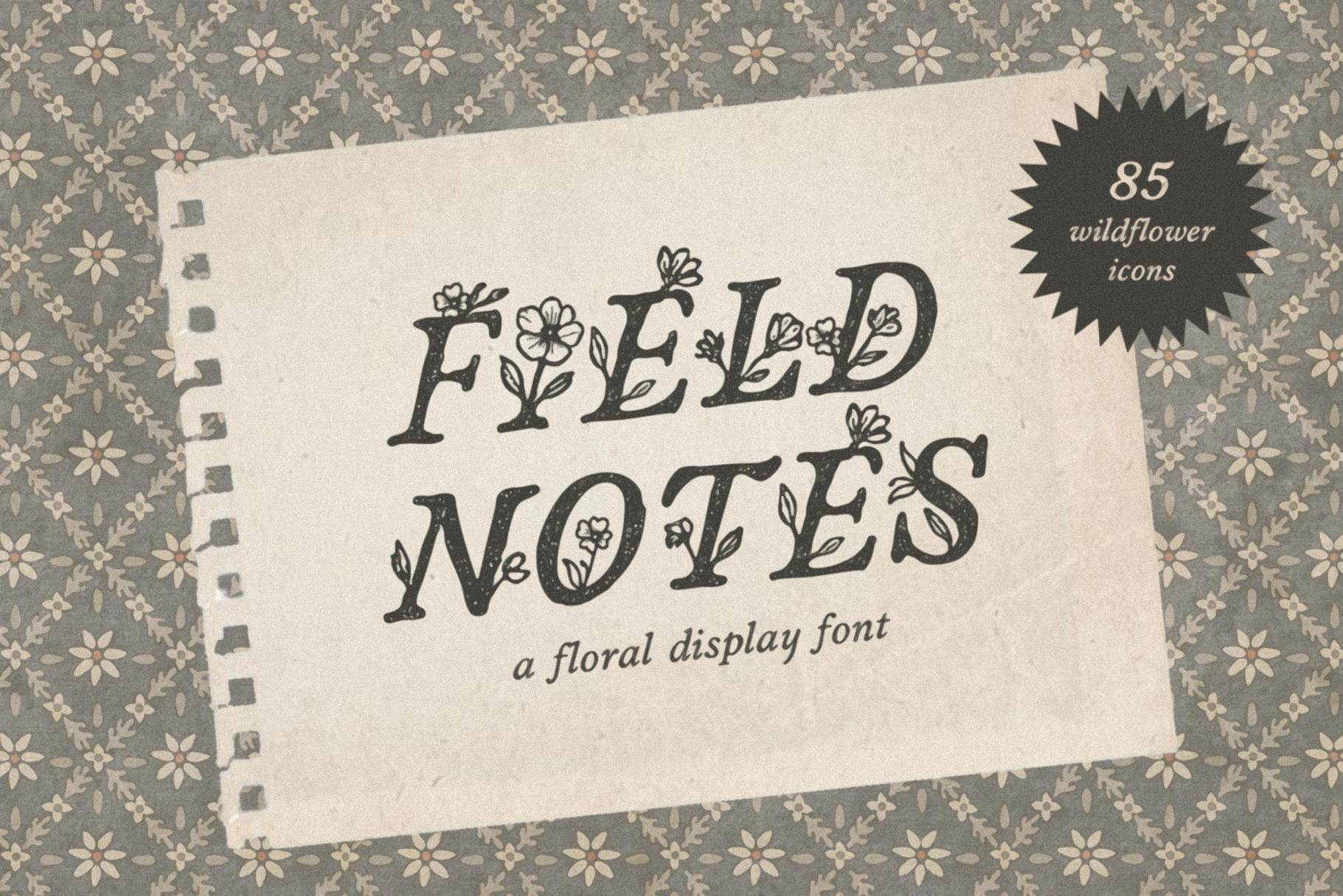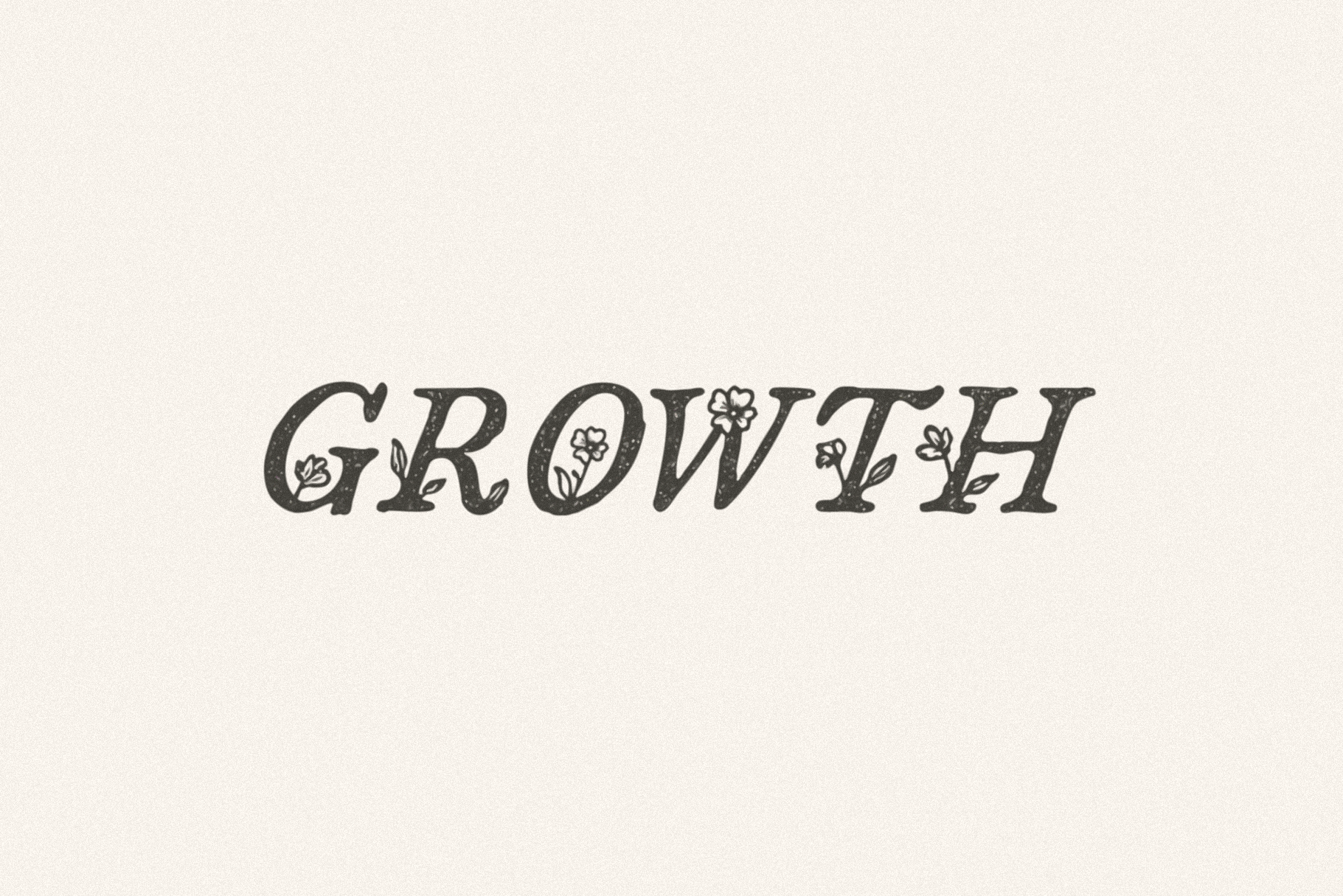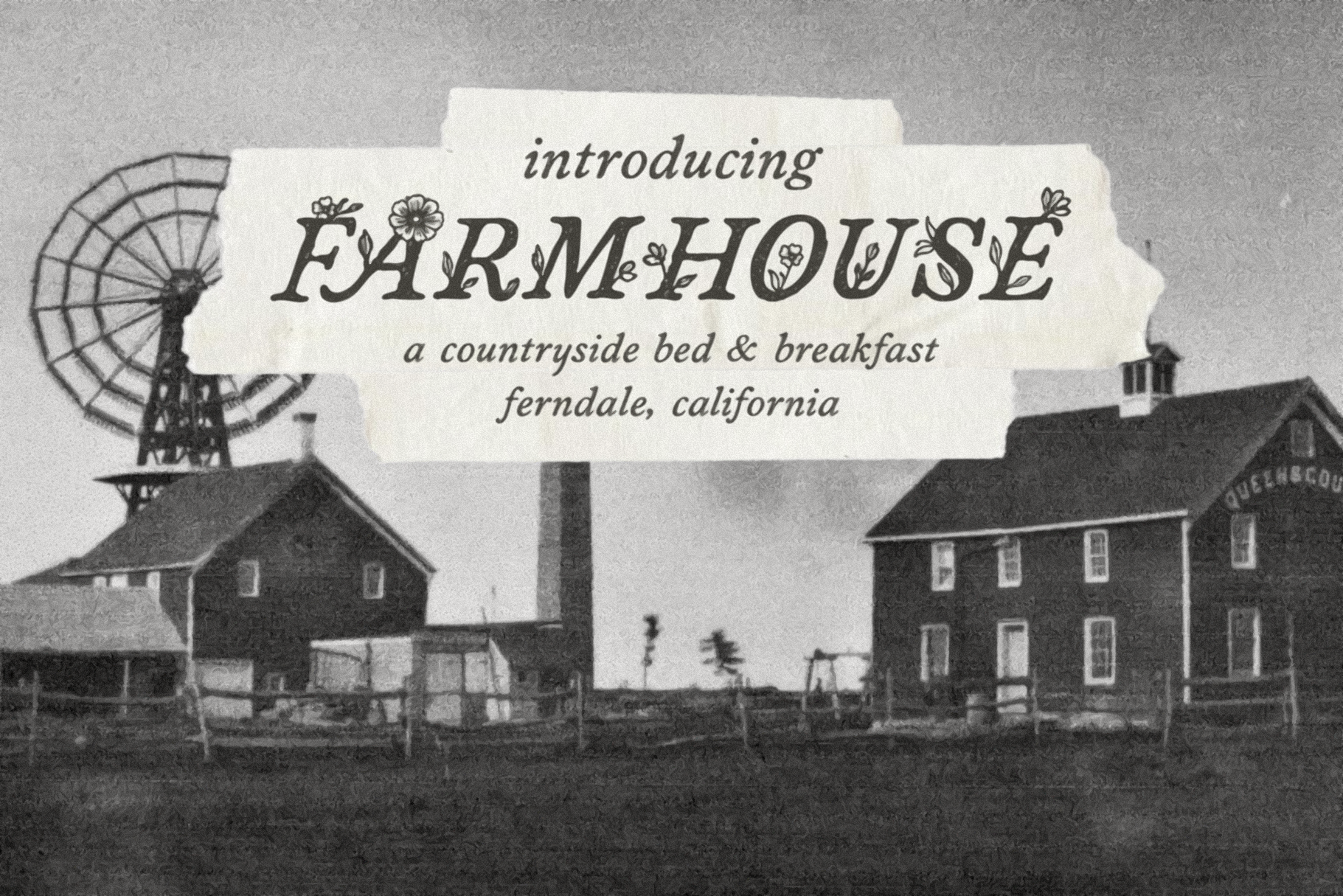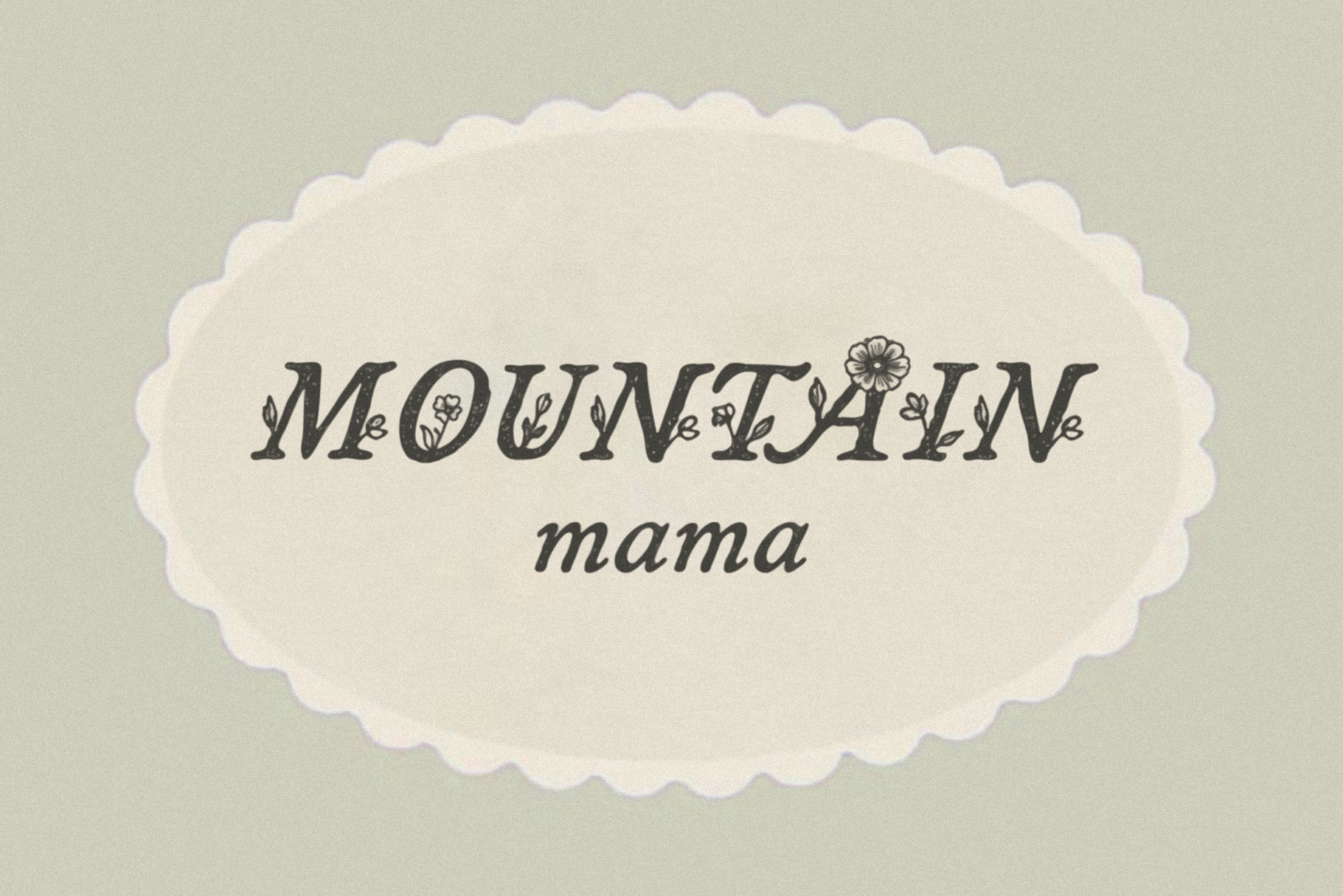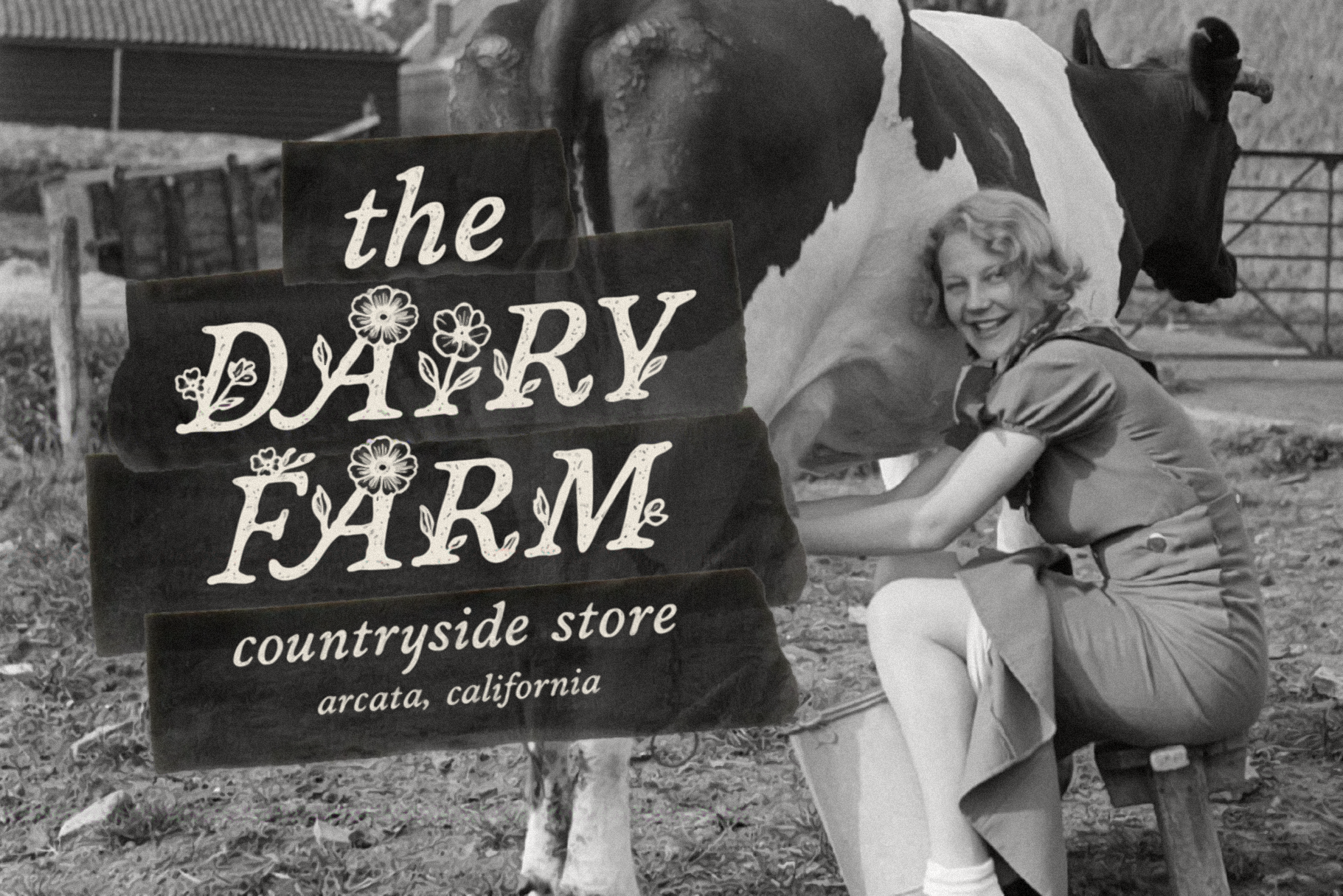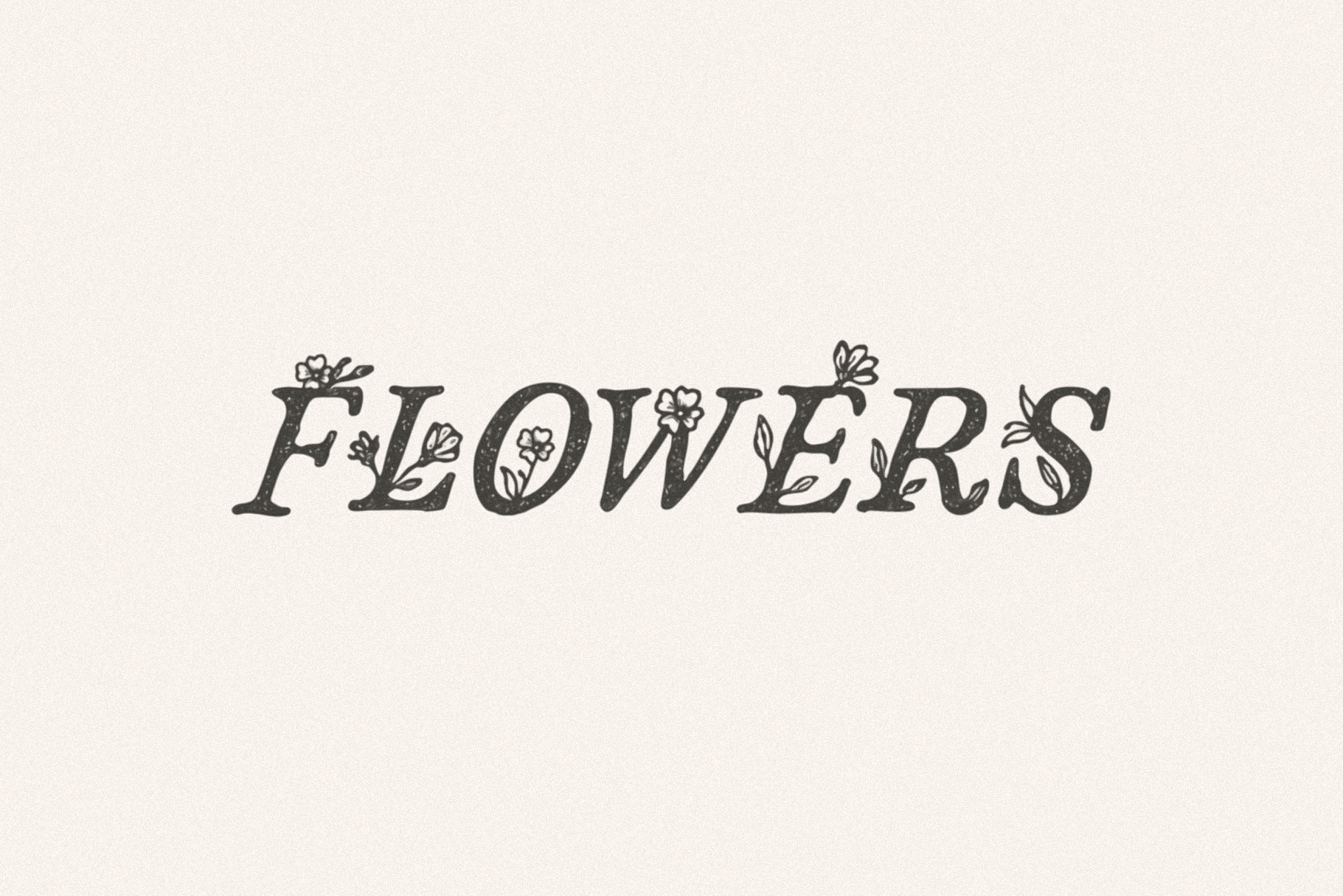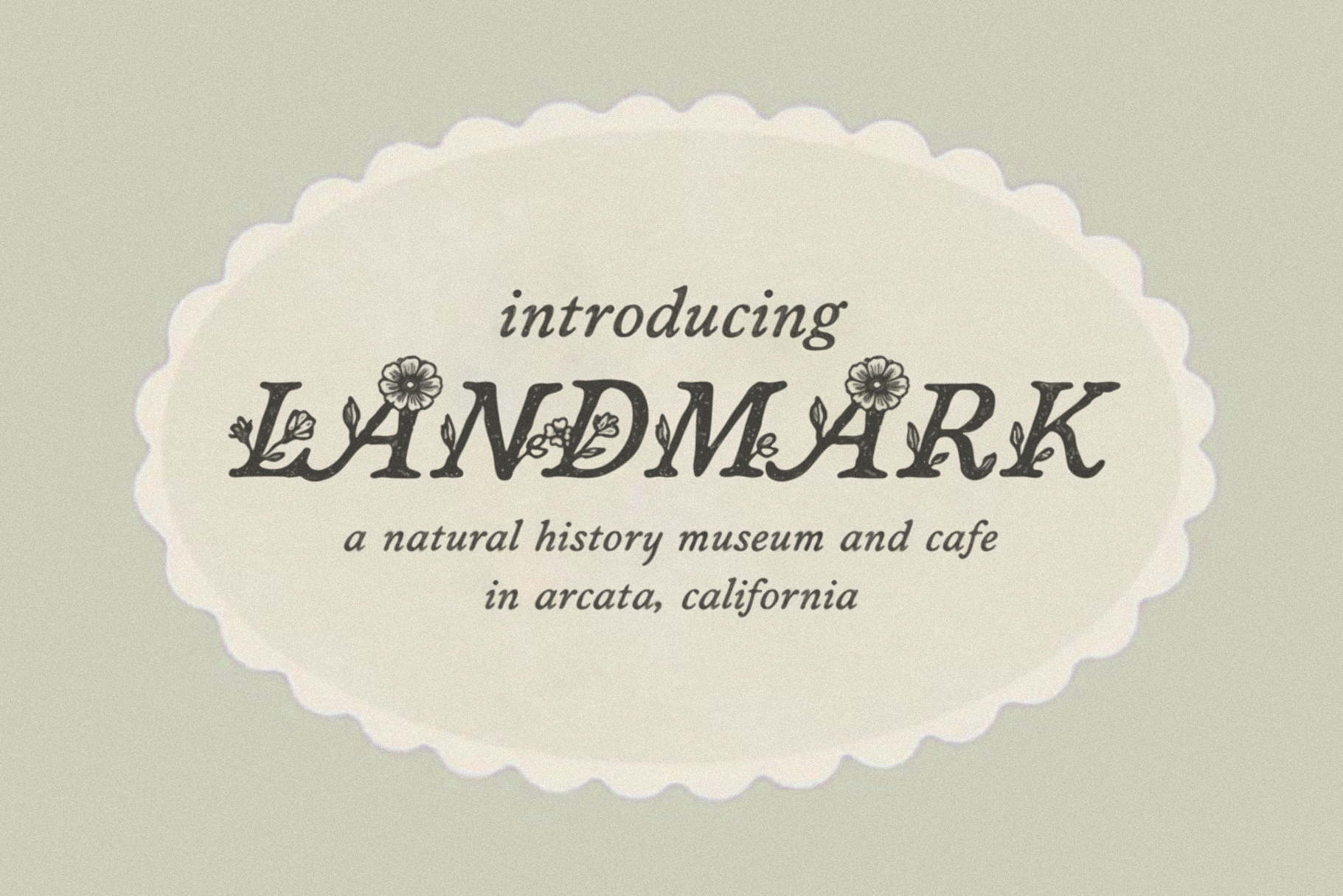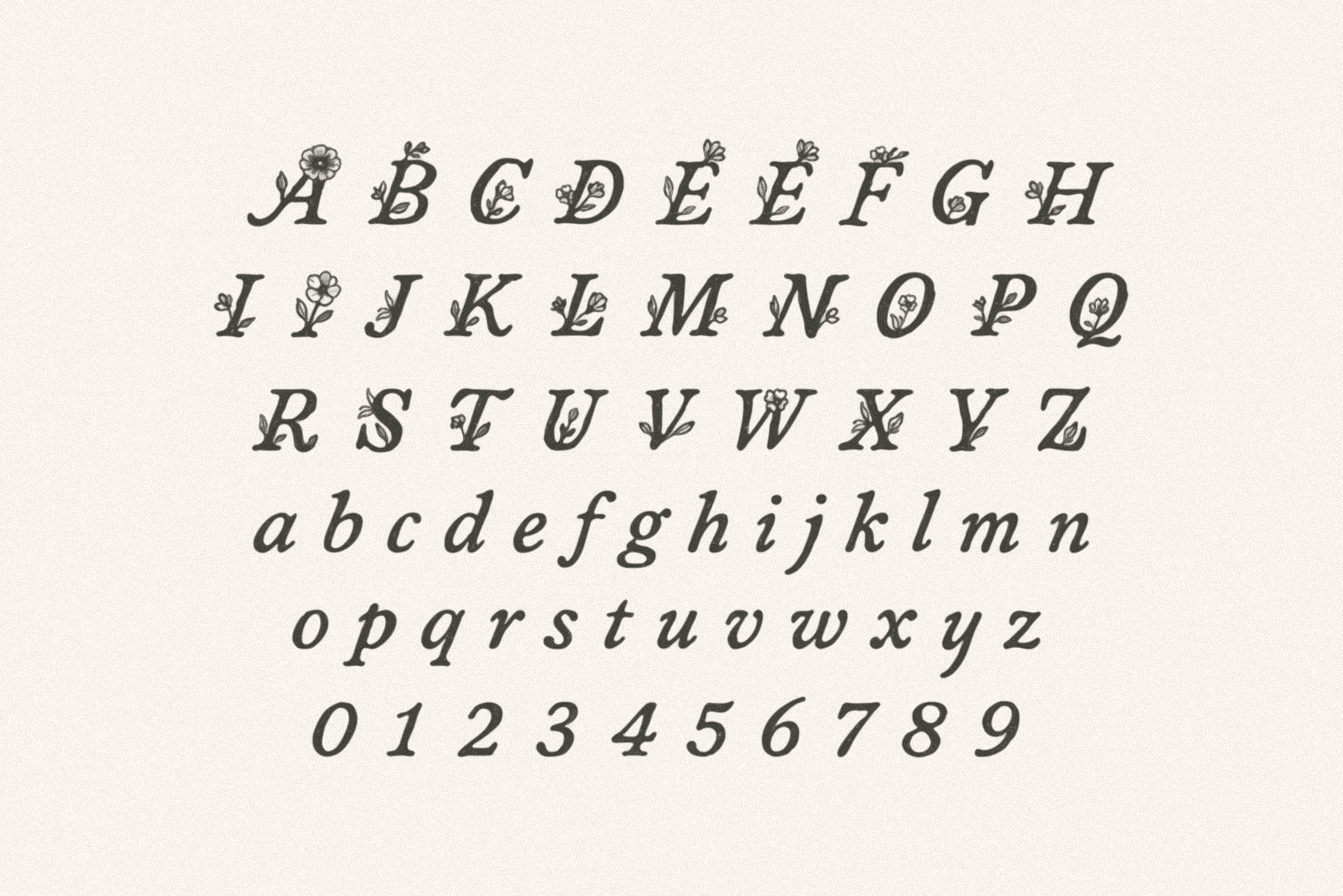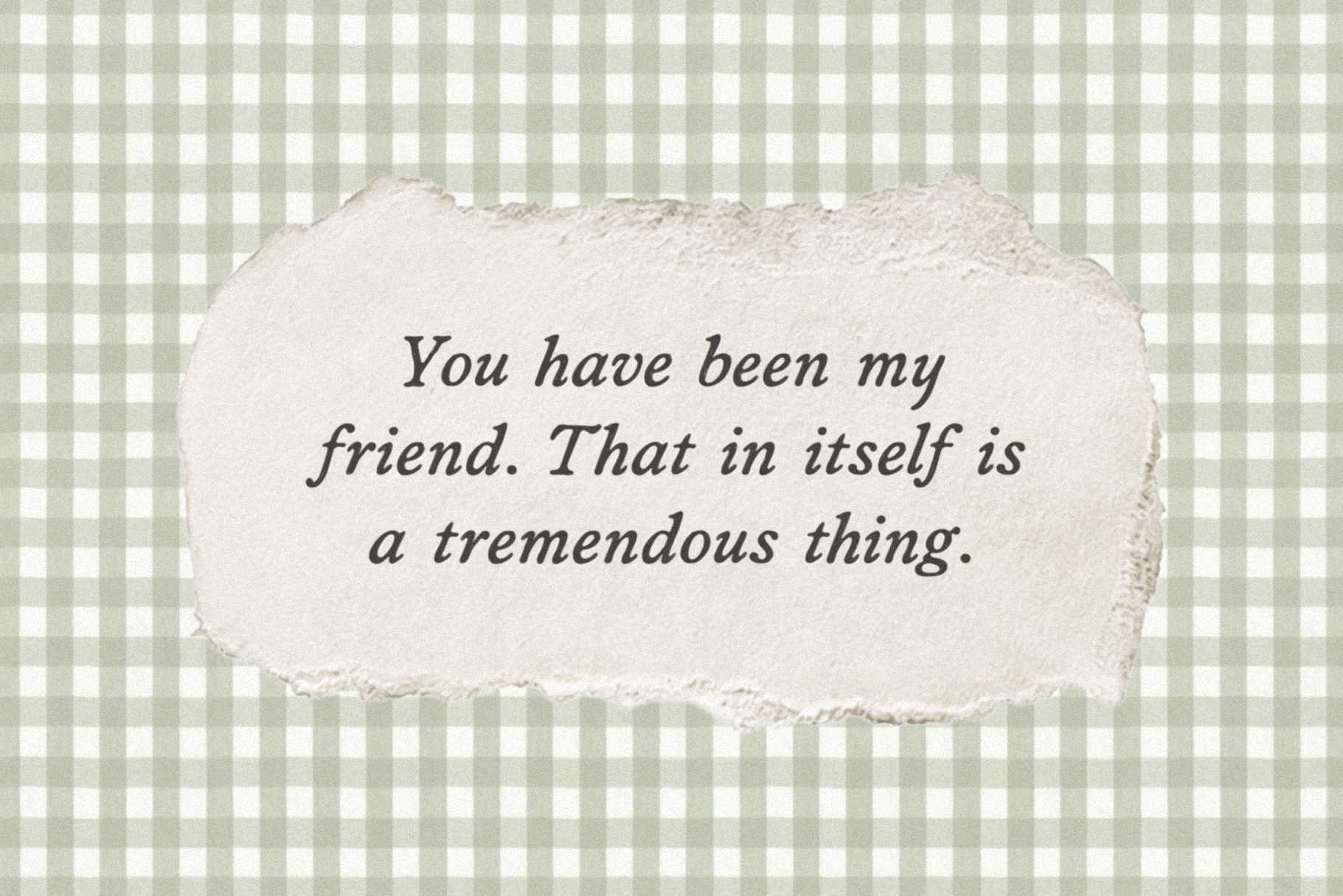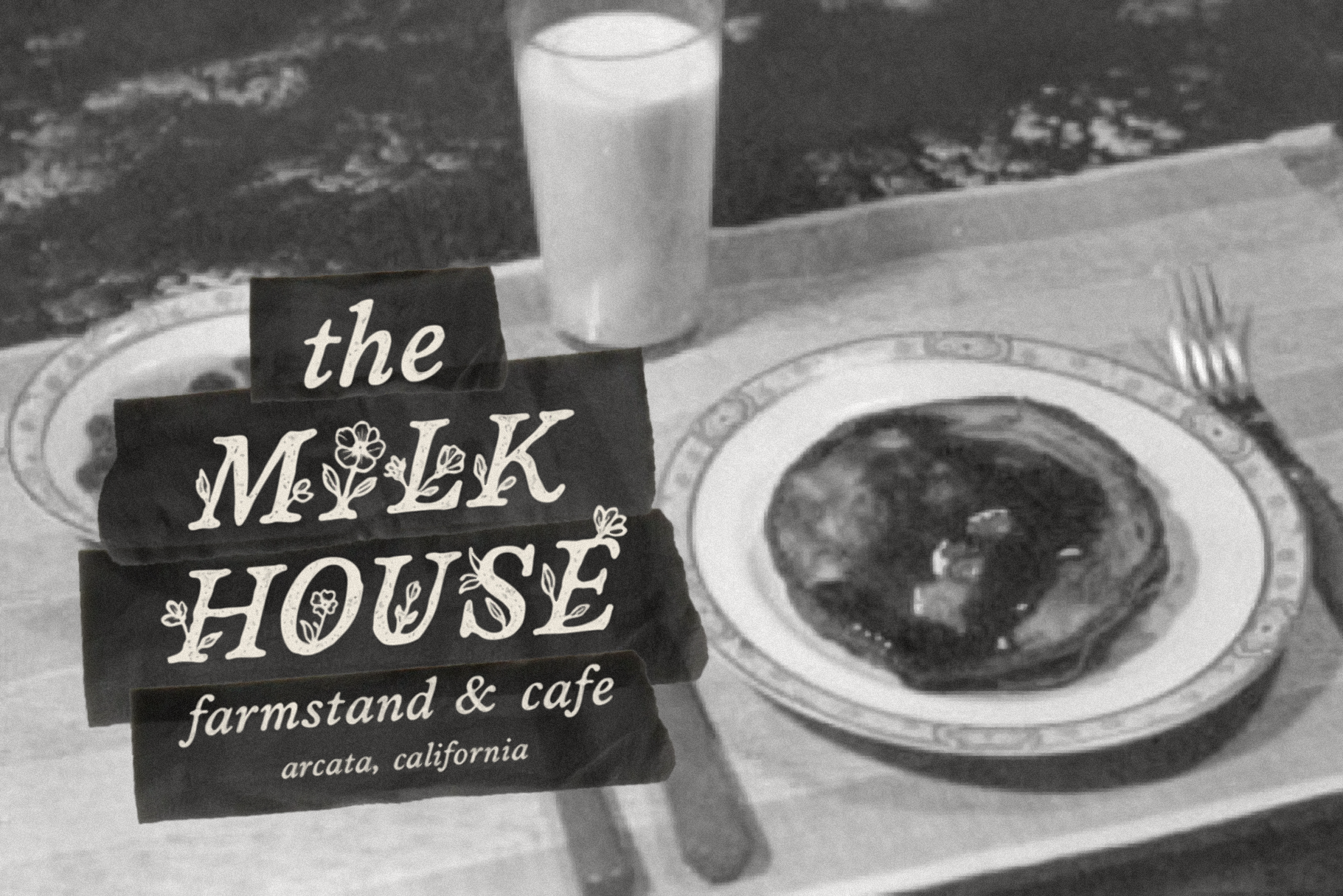
Field Notes
FIELD NOTES – A vintage-inspired floral display font + icons.
USE THESE FONTS FOR: ads, album covers, apparel, cards, flyers, invitations, logos, menus, merchandise, packaging, signage, web, and more.